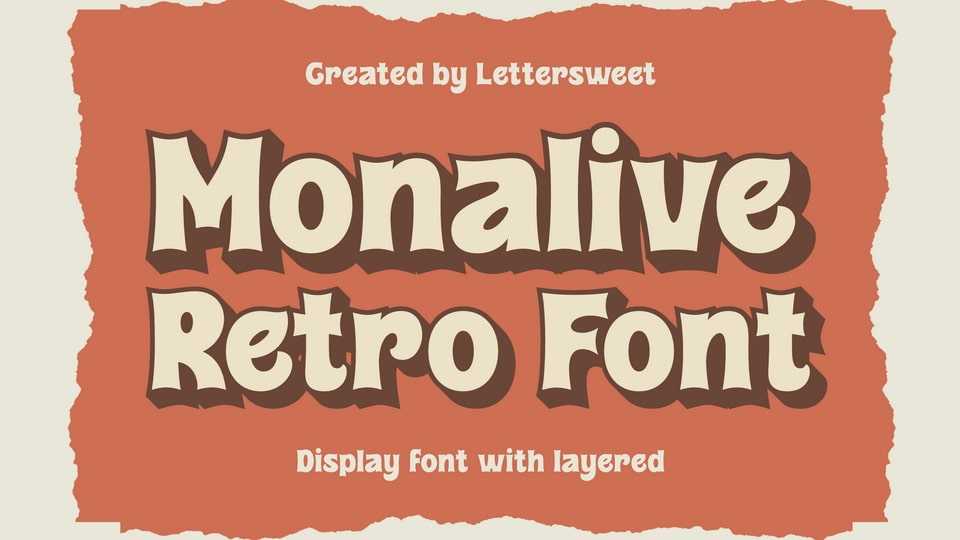
Download Monalive font, a fun, retro display typeface that bursts with vibrant energy and nostalgia. Its bold, playful letterforms and vintage charm make it perfect for eye-catching posters.